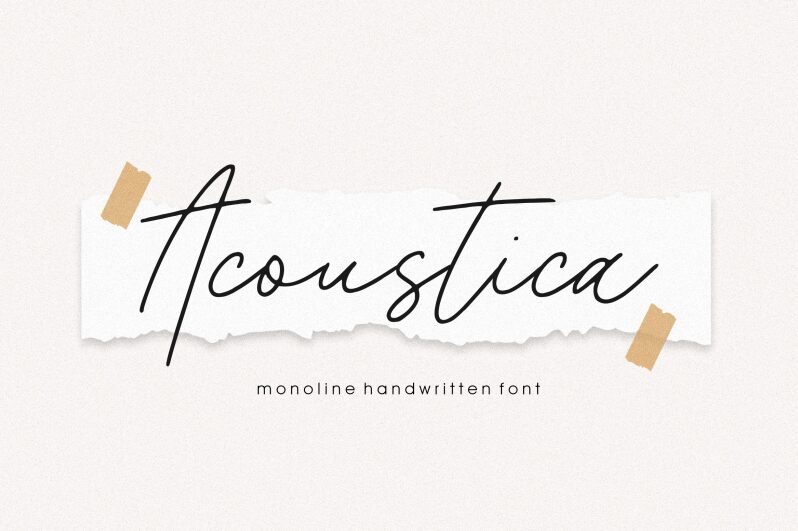
Acoustica
Acoustica, the exquisite handwritten font designed by Balpirick Studio, strikes a balance between simplicity and elegance. With its extra-light weight, Acoustica is perfect for creating delicate and artistic designs, such as wedding invitations or fashion branding. This charming font brings a personal touch to any project it's used in - from book covers to social media graphics. Its unique handcrafted feel adds character to any design while being easy on the eyes. Give your creative vision a boost with Acoustica's playful curves and effortless flow. Let this enchanting typeface inspire your next project!